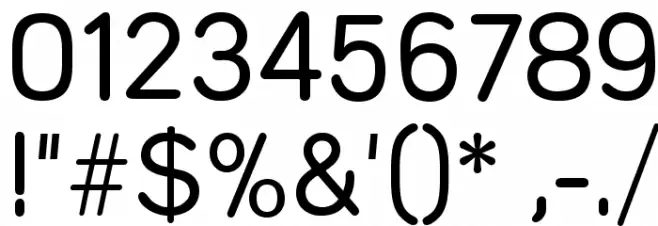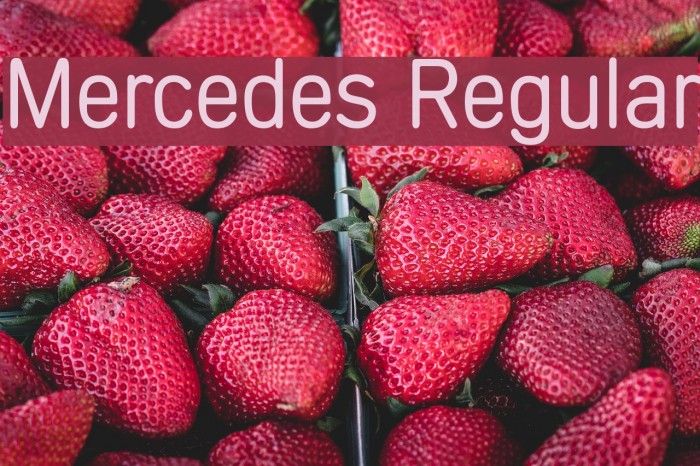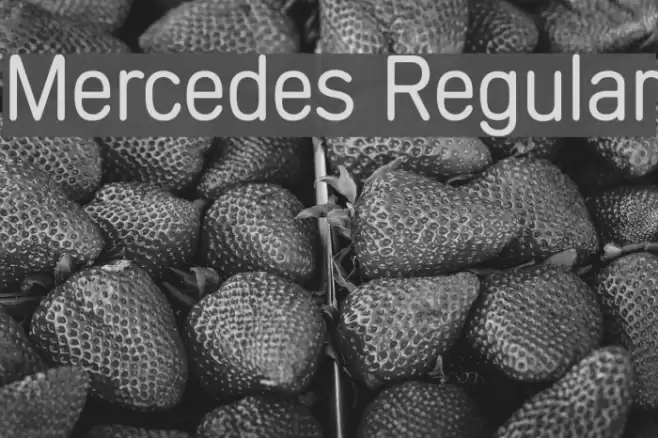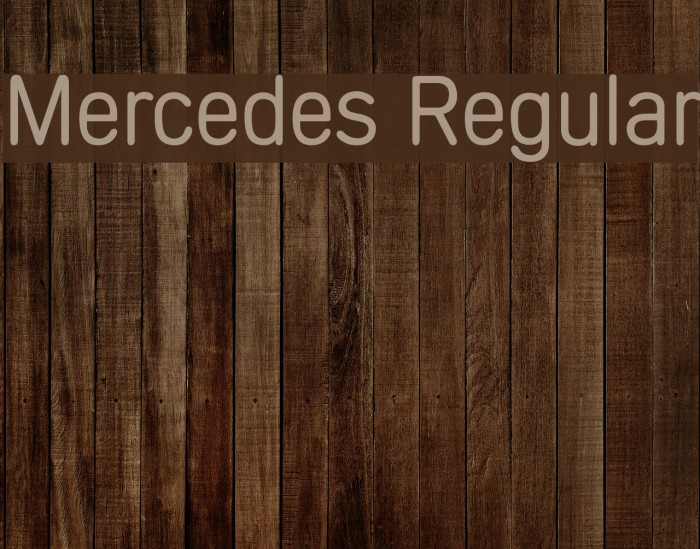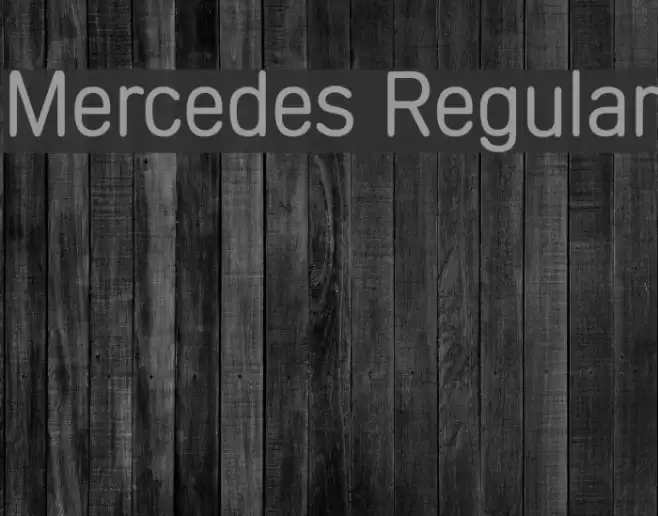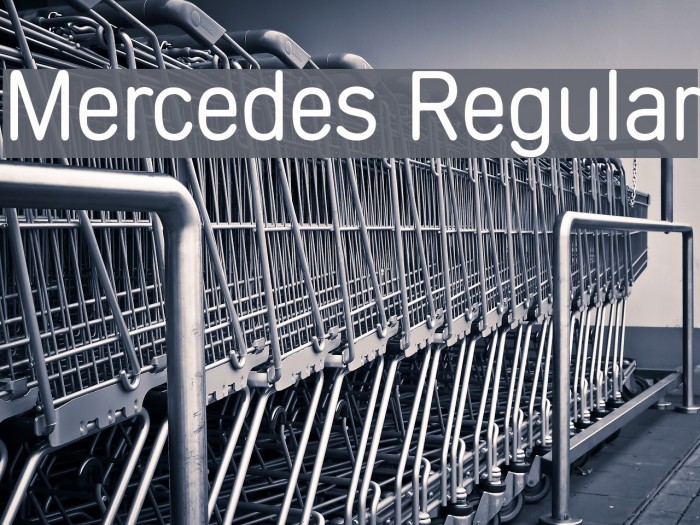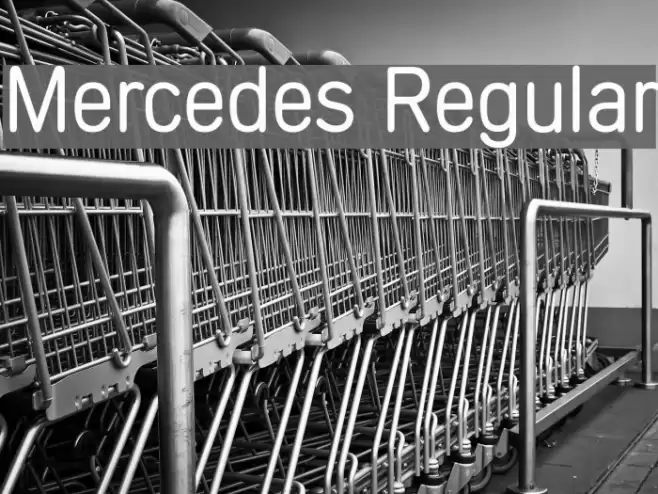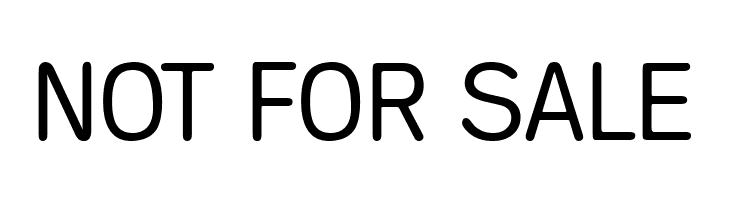
Mercedes Regular Font
Mercedes Regular Description
This font features a clean and modern sans-serif design, characterized by its rounded edges and uniform stroke width. The letters are well-proportioned, offering a harmonious balance between readability and style. The uppercase characters maintain a consistent height, while the lowercase letters are slightly shorter, providing a subtle distinction that enhances legibility. The numerals are clear and distinct, making them suitable for both digital and print applications. Special characters are included, maintaining the font's cohesive appearance. Overall, this font exudes a contemporary and professional aesthetic, making it versatile for various design needs.
| Use Case | Headlines, Body text, Logos |
| Proposed Projects | Ideal for branding, web design, corporate materials, and user interfaces. |